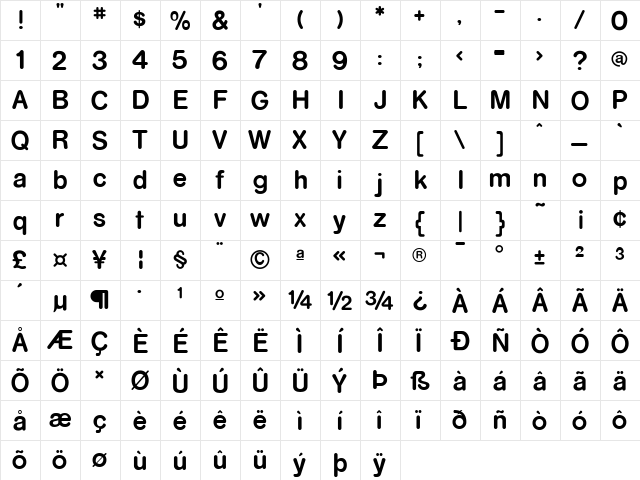
RockoFLF Bold
Design Context for RockoFLF Typeface
RockoFLF is a composed and adaptable typeface that performs quietly and consistently across a wide range of design contexts. Its bold stroke weight gives it real presence on the page.